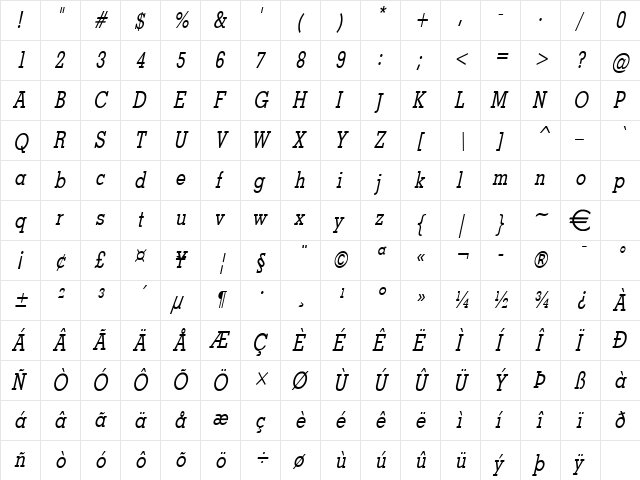
GeoThin Italic
Design Context for GeoThin Typeface
GeoThin takes a measured approach to typography — its balanced proportions and neutral character make it a reliable workhorse for both digital and print work. The dynamic lean of this cut emphasises speed and emphasis in any layout. The delicate stroke weight brings airiness and refinement to layouts.